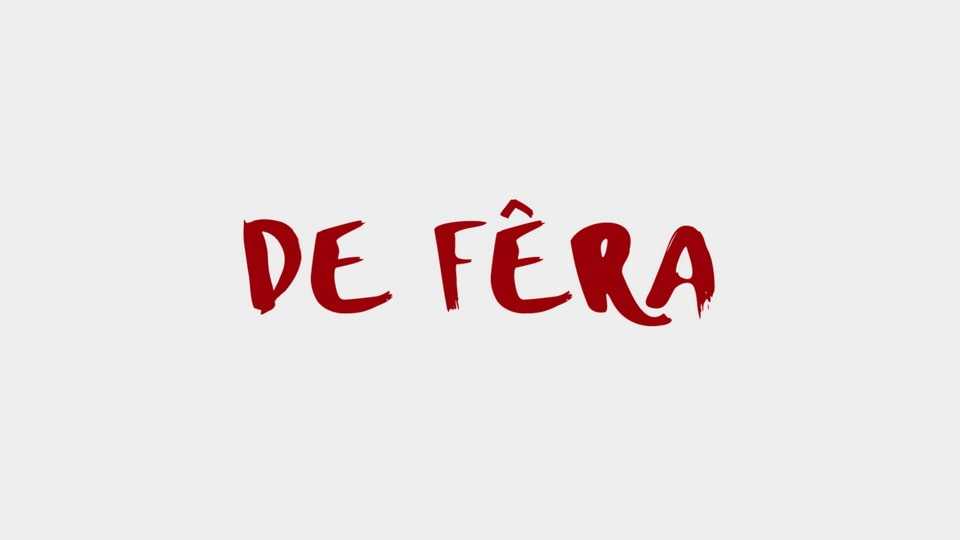
Download deFÊRA font, a display typeface primarily inspired by the hand-drawn lettering created by vendors at the Rochdale street market, in the city of Osasco.
Designer: Mabi Miranda